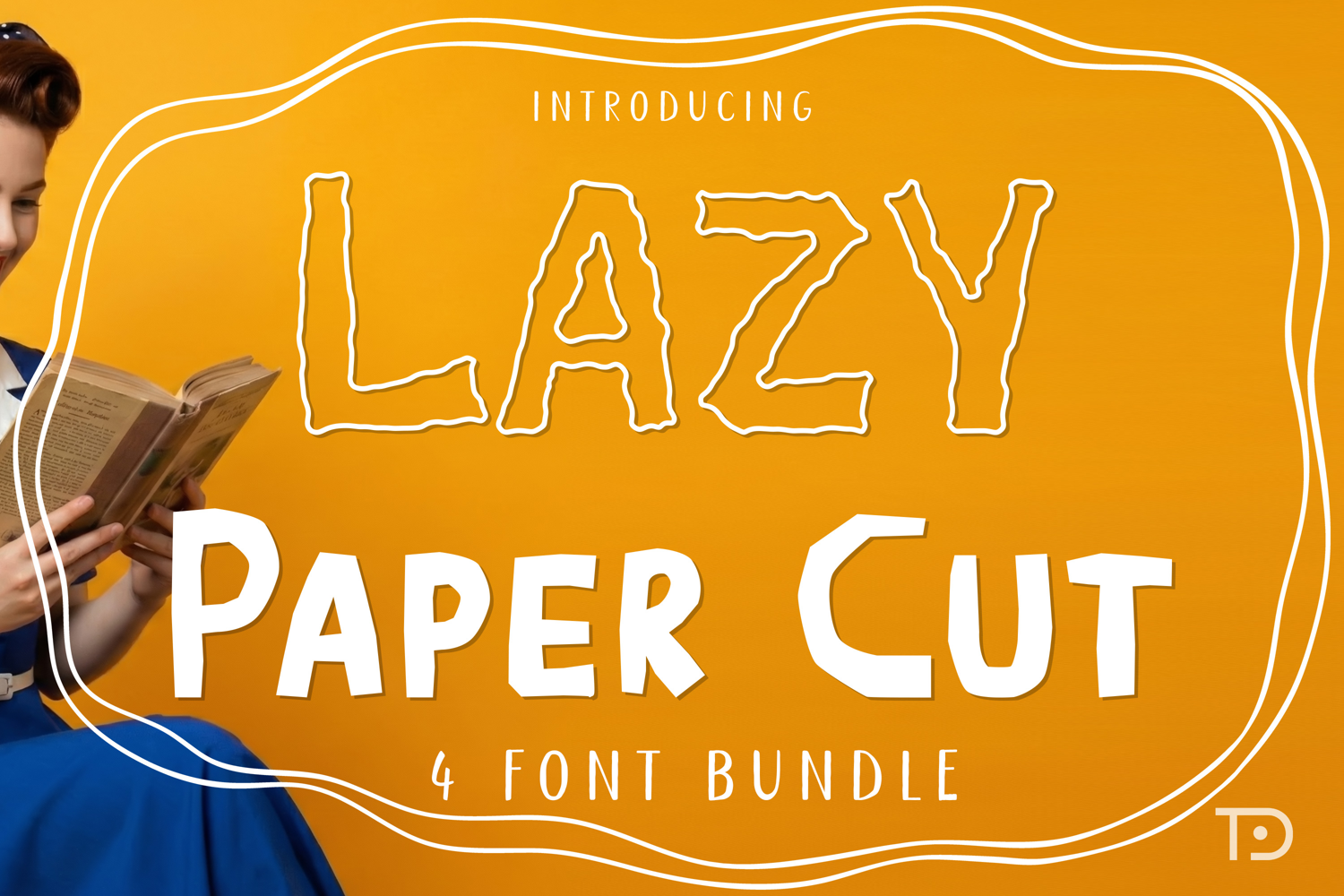
Lazy Paper Cut Bundle Font, Whimsical Busy Handdrawn font
Lazy Paper Cut 4 Bundle Fonts, a cute and funt playful display font that effortlessly captures the spirit of festivities. Bursting with joviality and warmth, this font is destined to become an essential part of your holiday-inspired creative endeavors. Envision it dazzling on preferably everything for t-shirt patterns and mug designs to digital artworks, crafts, and greeting cards. Undeniably, the ideal finishing touch to any project, imbuing them with a playful yet elegant aura. Indeed, it's the perfect way to spread love and cheer every holiday season.